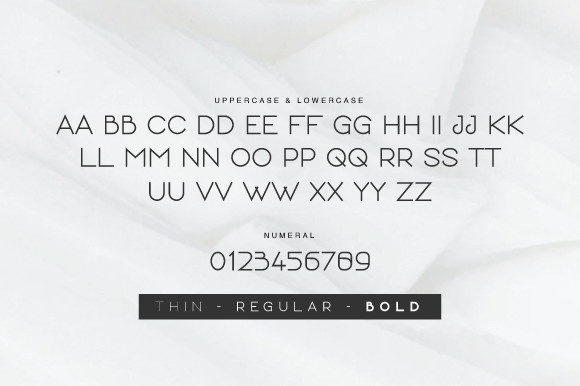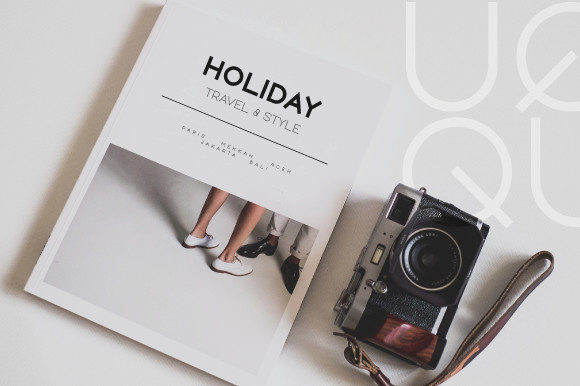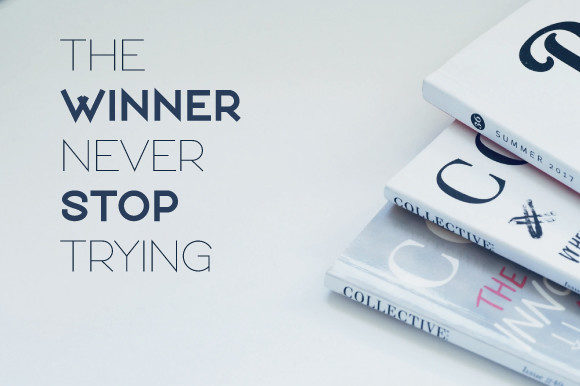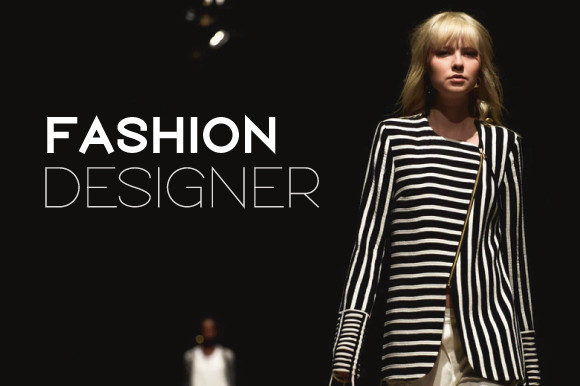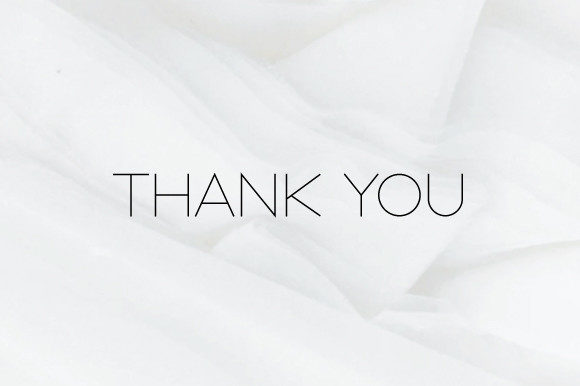
Introduction to Reqtu Font
Have you ever stared at a blank canvas, trying to bring your creative idea to life? The blank slate can be intimidating, but what if you had the perfect design resource to spark your imagination? That’s where the Reqtu Font comes in – a minimalist and elegant sans serif font that can elevate any creative project.
Whether you’re working on a website, a logo, or a branding material, the Reqtu Font can add a touch of sophistication and style to your design. Its clean lines and transparent background make it a versatile choice for a wide range of projects, from digital to print. And the best part? It’s available for free download, making it an accessible resource for designers of all levels.
As a valuable addition to your design arsenal, the Reqtu Font offers high-quality typography that can make your creative project stand out from the crowd. With its simple yet effective design, you can create a lasting impression on your audience and take your design skills to the next level.
Key Features of Reqtu Font
- High-quality font designed for creative projects, available for free download.
- Unique and stylish design, ideal for use in graphic design, digital art, and other creative pursuits.
- Transparent background, allowing for seamless integration into various design elements and backgrounds.
- Includes multiple font styles, including bold, italic, and regular, to provide versatility in design applications.
- Designed with a high-resolution aesthetic, suitable for use in print and digital media at resolutions up to 300 DPI.
- Can be used as a design resource for a variety of creative projects, including logos, branding, and marketing materials.
Honest Review: Reqtu Font
As a designer, I’m always on the lookout for high-quality design resources to elevate my creative projects. The Reqtu Font caught my attention with its sleek and modern aesthetic, making it a great addition to any design portfolio.
What works well with the Reqtu Font is its clean and minimalist design ✨. The font is perfect for creating a professional and sophisticated look in any creative project, from logos to branding materials. I also appreciate that it’s available for free download, making it an excellent design resource for designers of all levels.
The Reqtu Font also offers a transparent background option, which allows for seamless integration into any design. This feature makes it easy to use the font in various creative projects, from digital designs to print materials.
However, I do have a few limitations to mention ⚠️. The font may not be suitable for certain design projects that require a more playful or whimsical feel. Additionally, the font’s simplicity may not be ideal for designs that require a lot of emphasis or visual interest.
Overall, I’m impressed with the Reqtu Font and would recommend it to designers who are looking for a high-quality, versatile font for their creative projects.
- Pros:
- Clean and minimalist design
- Cons:
- May not be suitable for playful or whimsical designs
- Simple design may not be ideal for designs that require emphasis
Tips for Getting the Most Out of Reqtu Font
Use the Reqtu Font with a transparent background to create a seamless design element. Experiment with different font sizes and styles to add visual interest to your project. Also, consider pairing the Reqtu Font with other design resources to create a cohesive look.
The Reqtu Font is ideal for creative projects that require a high-quality, unique font. Some common use cases include branding materials, marketing materials, and digital designs. With its free download option, you can access this design resource without breaking the bank.